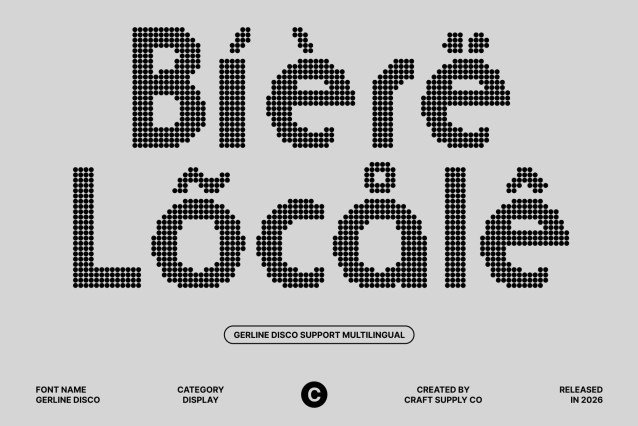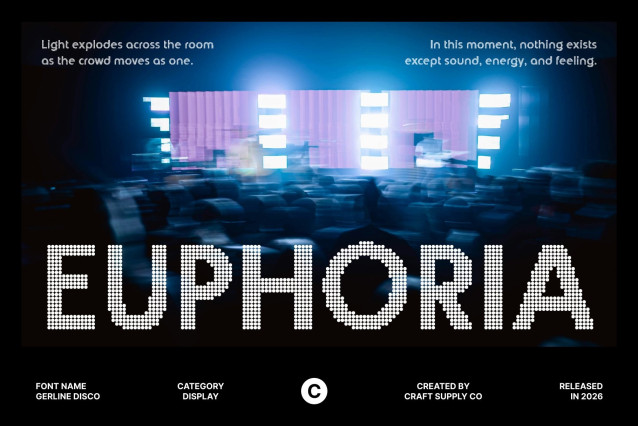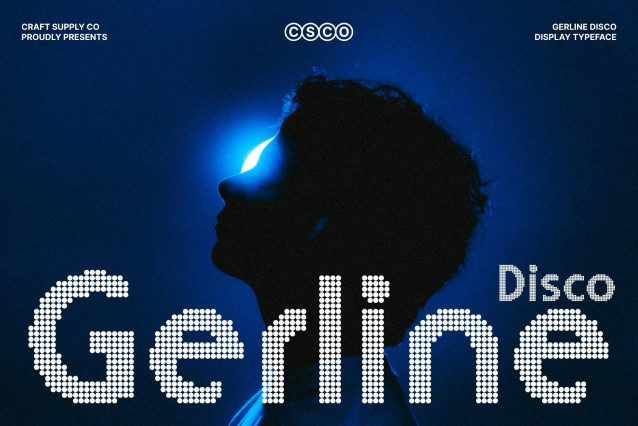
Gerline Disco Font
Gerline Disco – Contemporary Sans with Modern Party Elegance
Sleek Sans-Serif with Disco Personality
This is a contemporary sans-serif font that blends professional clarity with a subtle disco-inspired twist. Its clean lines and balanced proportions create a modern, polished look, while the dotted disco texture adds a hint of sparkle that brings energy and visual interest.
Elegant, Versatile, and Stylish
Designed to move effortlessly between corporate and creative environments, this font offers a refined yet lively personality. The minimal sans-serif structure keeps layouts neat and sophisticated, while the disco styling introduces a fresh, stylish charm that feels modern and engaging.
Clarity and Readability at Every Size
This font maintains excellent readability across print and digital media. From body text and presentations to branding and headlines, its clear letterforms ensure messages remain professional, legible, and visually appealing.